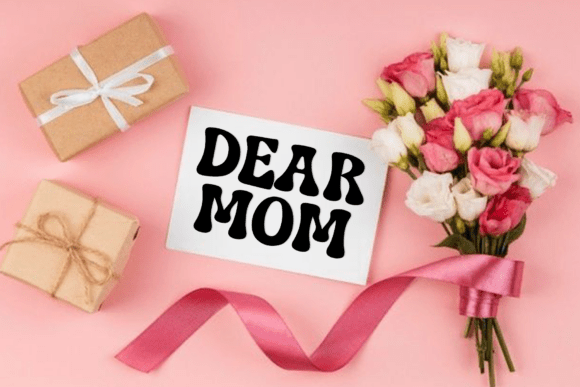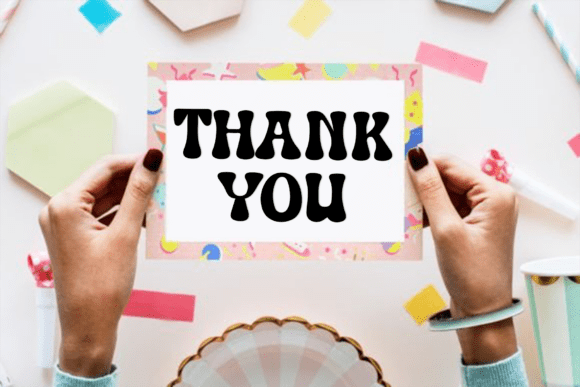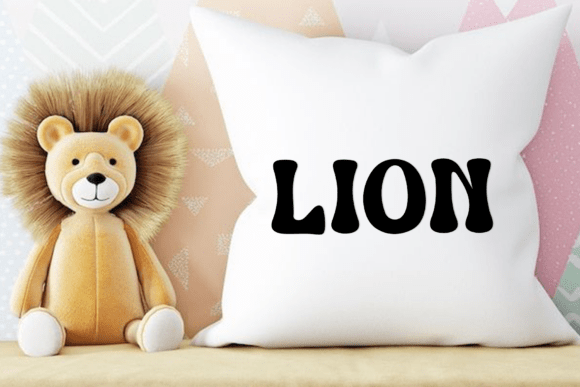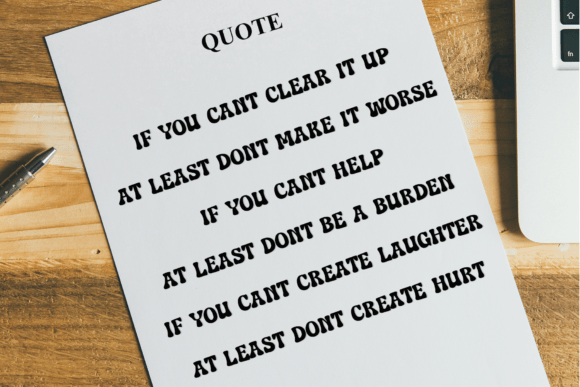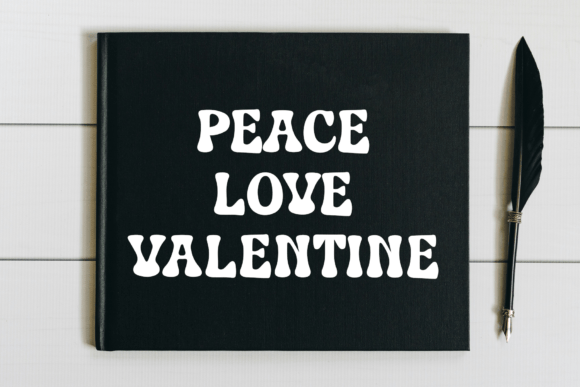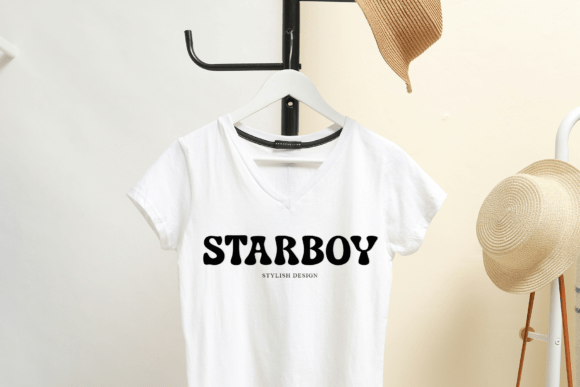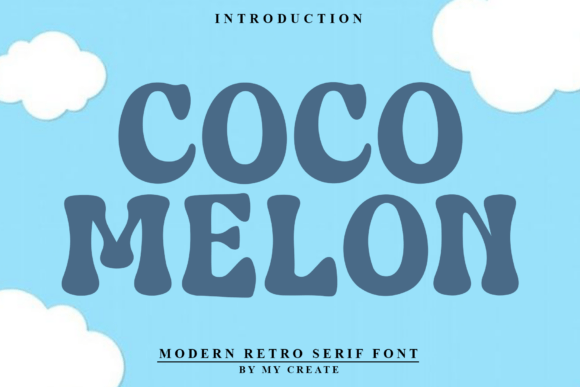
Coco Melon Font: The Perfect Choice for Creative and Playful Designs
Are you a designer or crafter looking for a font that can add a touch of warmth and friendliness to your projects? Look no further than the Coco Melon font. This casual and creative font is perfect for personal projects, invitations, social media graphics, and more. In this article, we’ll take a closer look at the Coco Melon font, its features, and how you can use it to elevate your designs.
What is Coco Melon Font?
Coco Melon font is a hand-drawn, playful font that exudes a relaxed and approachable feel. Its round, smooth strokes create a charming and unique aesthetic that’s perfect for designs that require a personal touch. The font’s casual and creative vibe makes it an excellent choice for designers and crafters who want to add a fun and friendly touch to their projects.
Key Features of Coco Melon Font
- Playful and Hand-Drawn Aesthetic: The Coco Melon font has a charming, hand-drawn look that adds a unique touch to any design.
Uses of Coco Melon Font
The Coco Melon font is versatile and can be used for a wide range of design projects, including:
- Personal Projects: Use the Coco Melon font to create personalized gifts, such as handmade cards, invitations, and scrapbook pages.
- Social Media Graphics: Add a playful touch to your social media graphics, such as Instagram posts, Facebook covers, and Twitter headers.
- Invitations and Party Decor: Use the Coco Melon font to create custom invitations, party banners, and other decorations for special events.
- Branding and Packaging: The Coco Melon font can also be used for branding and packaging projects, such as logos, labels, and product packaging.
Tips for Using Coco Melon Font
Here are some tips for using the Coco Melon font effectively in your designs:
- Pair with Other Fonts: Experiment with pairing the Coco Melon font with other fonts to create a unique and interesting contrast.
- Use in Large Sizes: The Coco Melon font looks great in large sizes, making it perfect for headlines, titles, and other prominent design elements.
- Add Texture and Patterns: Add texture and patterns to your design to give it a more playful and creative feel.
The Coco Melon font is a versatile and creative font that’s perfect for designers and crafters who want to add a touch of warmth and friendliness to their projects. With its playful and hand-drawn aesthetic, standard PUA Encoded glyphs, and multilingual support, this font is an excellent choice for a wide range of design projects. Whether you’re working on personal projects, social media graphics, or branding and packaging, the Coco Melon font is sure to become a favorite in your design arsenal.